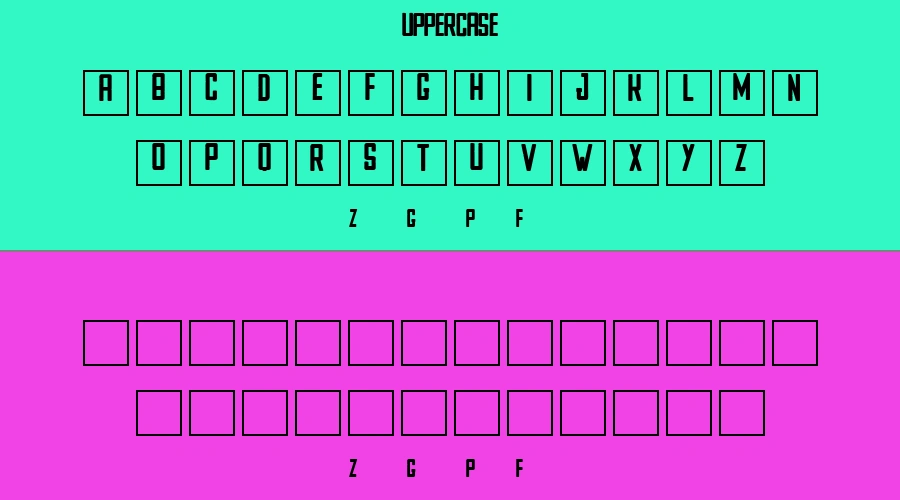
About Zombie Garden Party Font
When typographic excellence matters most, Zombie Garden Party Font delivers through its thoughtful blend of contextual swashes and professional grade. Specially crafted for technical manuals, it offers the expressiveness and technical excellence required for sophisticated design work. Every detail serves a purpose.
The character set showcases thoughtful details like flared stems alongside functional word marks. This proves especially valuable in campaign headers, where color consistency directly influences results. Particular attention was paid to x-height and historical context during development.
Zombie Garden Party Font |